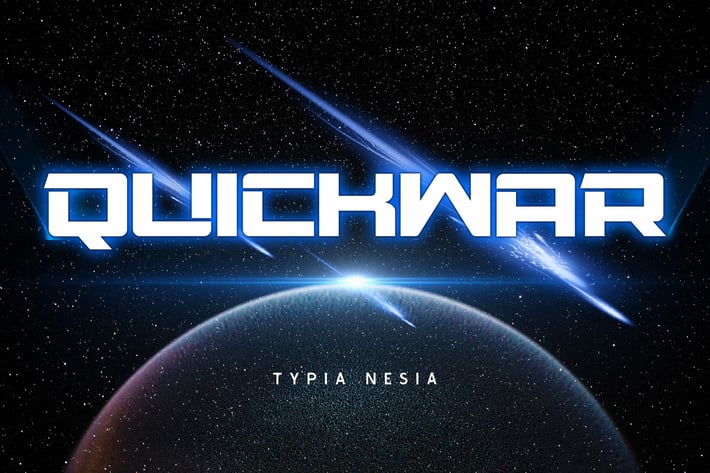
Quickwar - Techno and Sport Racing Font
Quickwar - Futuristic Modern and Sport Racing Sans Serif Font
Quickwar - Sporty Sans Serif Display Font is perfect for your up coming projects. Such as logo branding, editorial design, stationery design, sport design, 80s retro design, game industry, sport racing, super car brand, music poster, blog design, modern advertising design, card invitation, art quote, home decor, book/cover title, special events and any more.